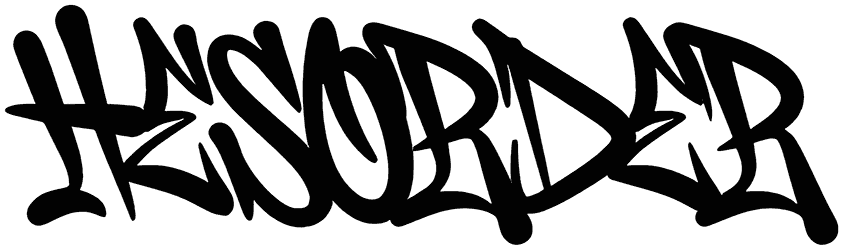
Bomber Urban Font
Bringing together the casual touch of handwritten fonts and the street vibes of graffiti style, Bomber Urban can make your words stick out. That’s why you shouldn’t worry about your next poster projects promoting parties, concerts, skateboards, or streetwear.
There may be a whole set of lowercase letters absent from its character map, but this graffiti font makes up for that with another pack of uppercase, only on a smaller scale. That’s enough to bring boldness and inspiration into your writing.
Bomber Urban by Nirmana Visual,
Designed by: Nirmana Visual